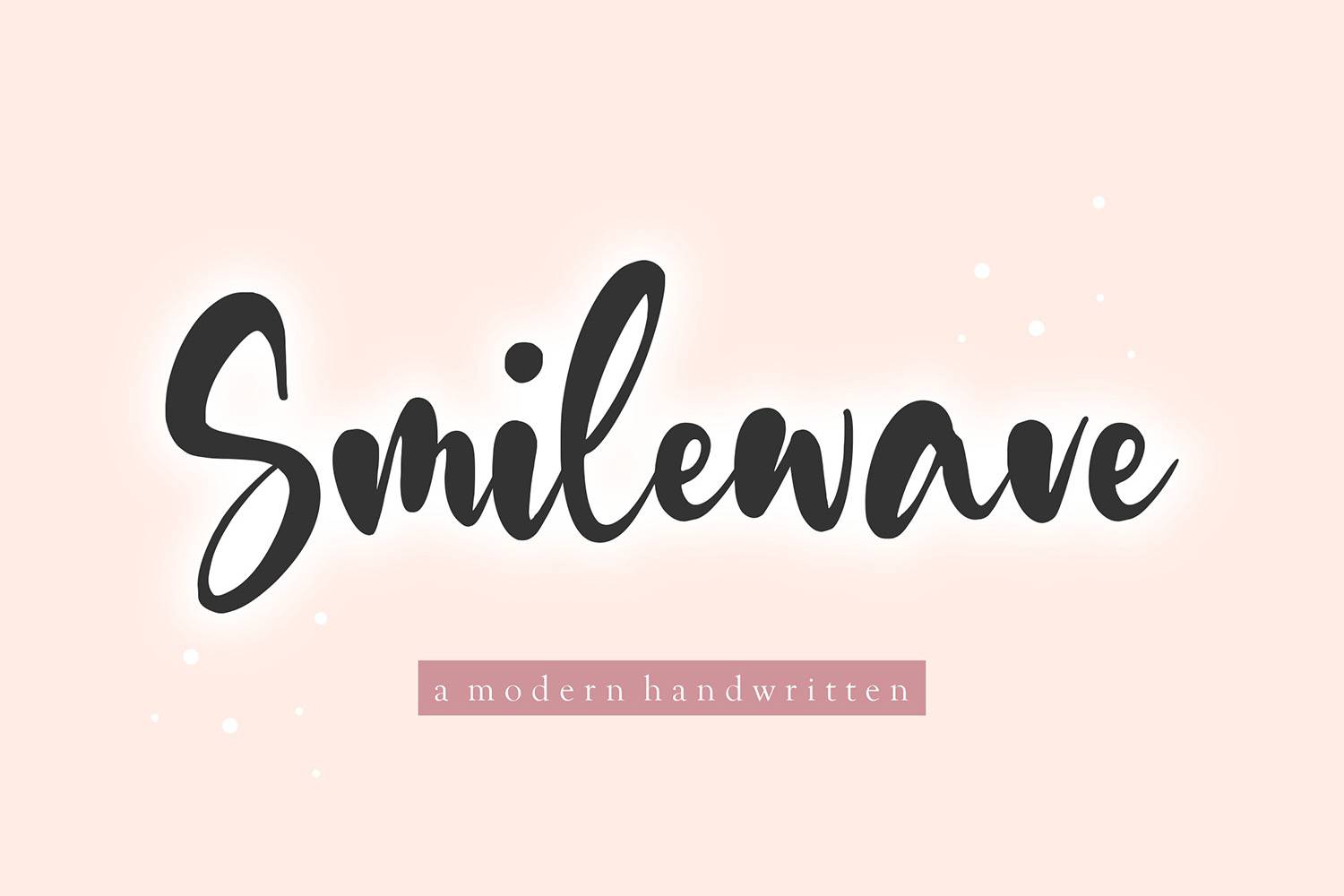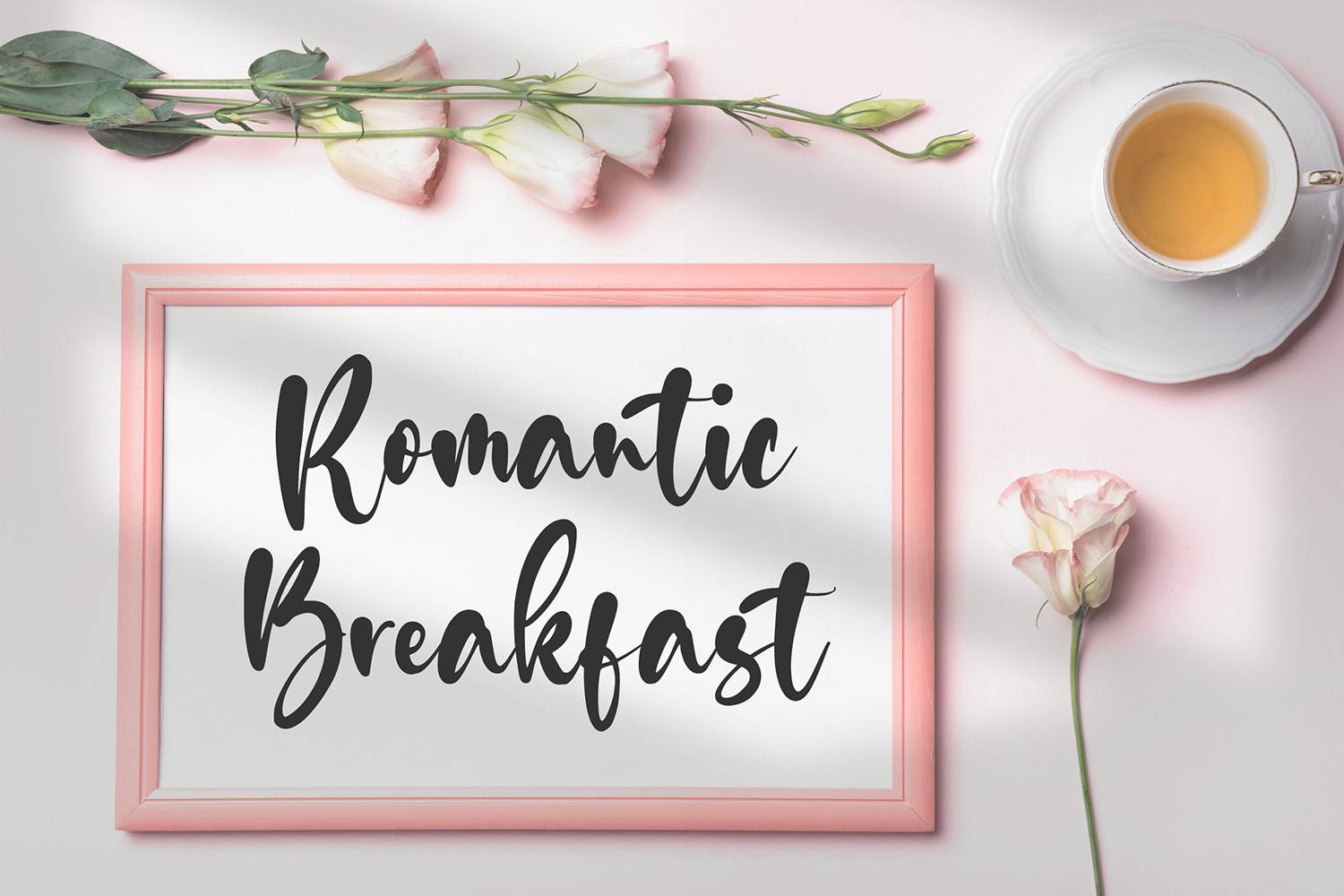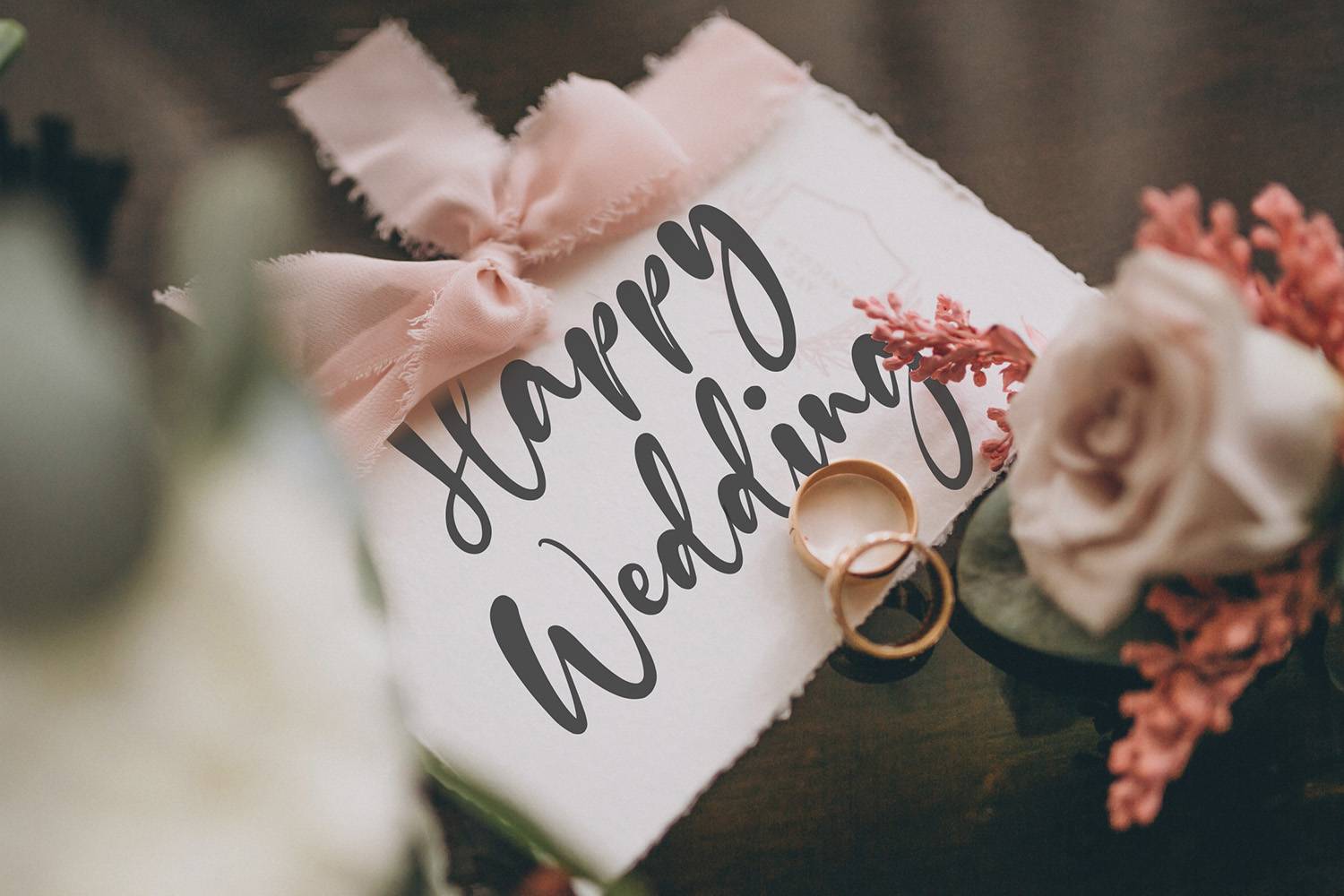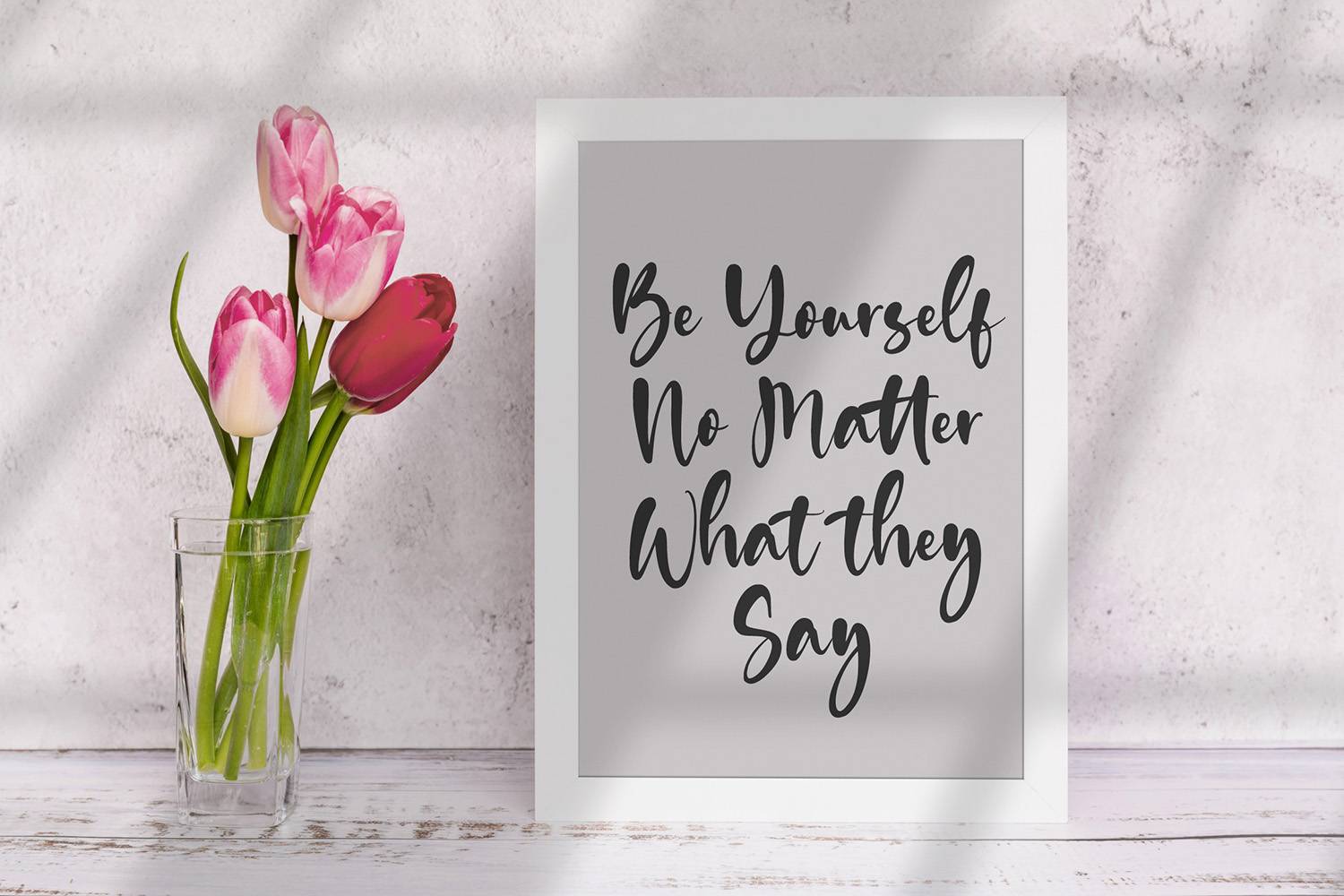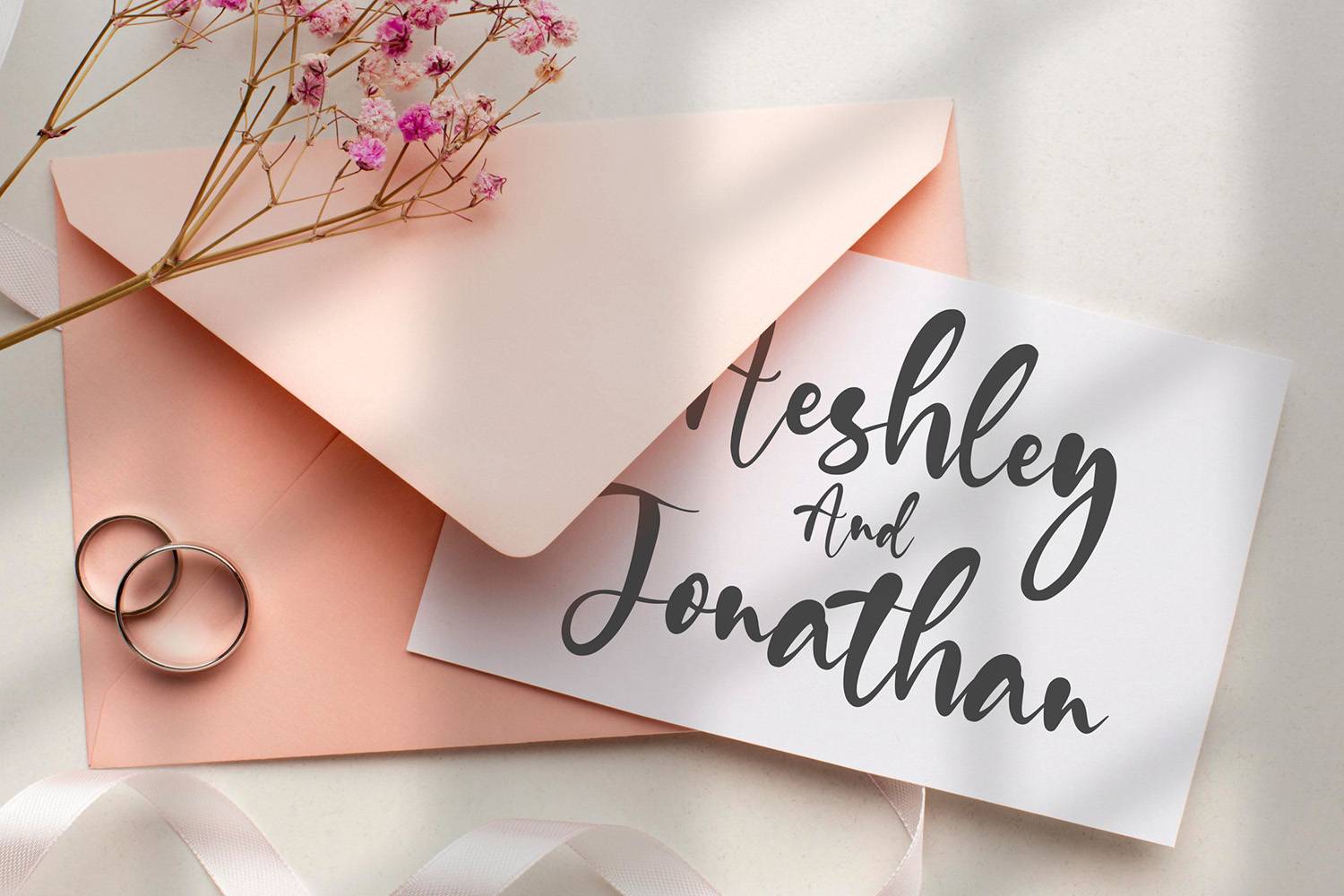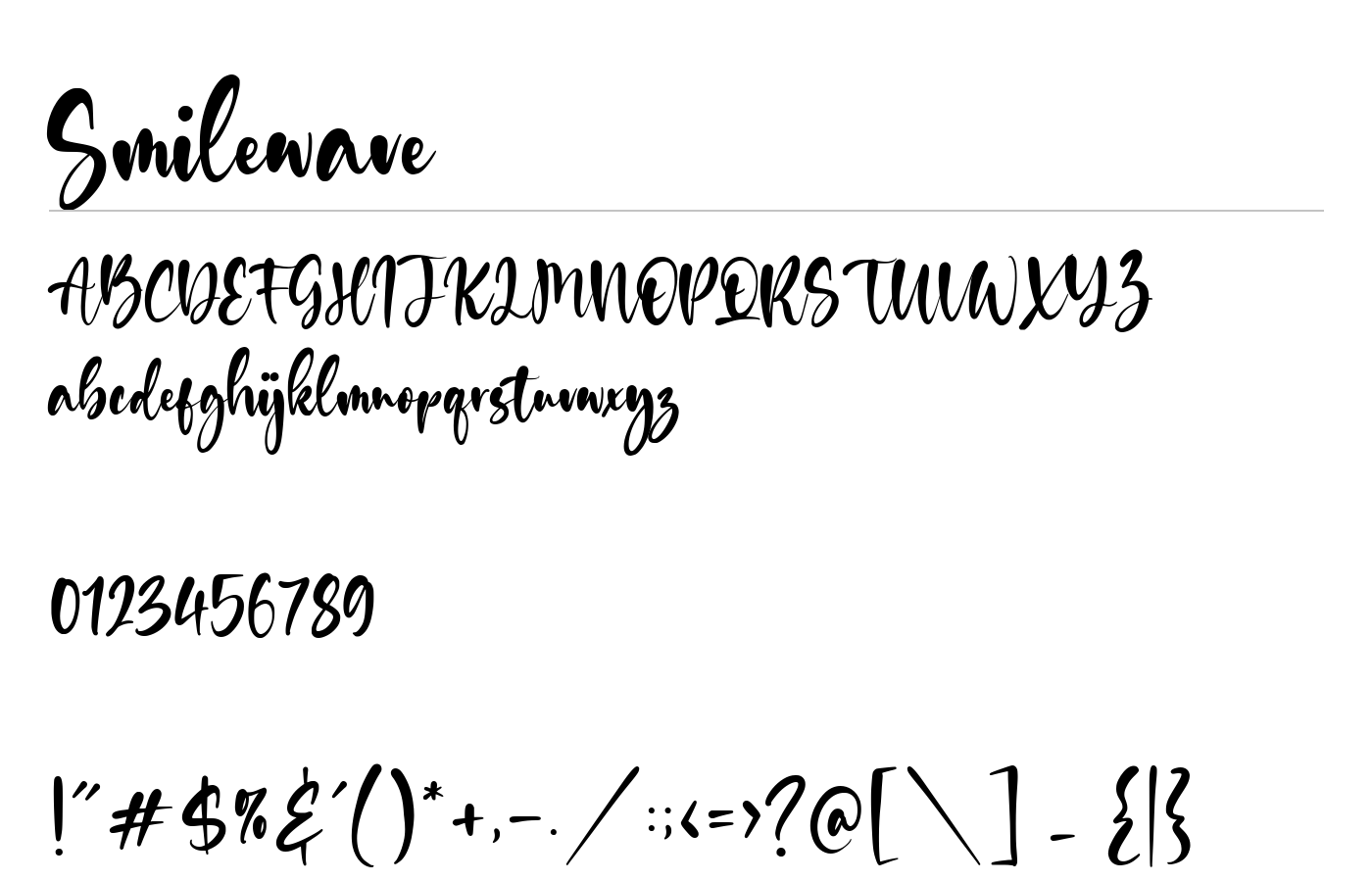
Smilewave is a lively and modern script font with a casual, handwritten feel, featuring smooth, flowing strokes and medium weight that create a friendly and approachable look. Its balanced x-height and open letterforms make it versatile for branding, invitations, and creative projects where a personal, warm touch is desired. This font works especially well in logos, social media graphics, and packaging that aim to convey charm and authenticity.
Smilewave Font
About Smilewave Font